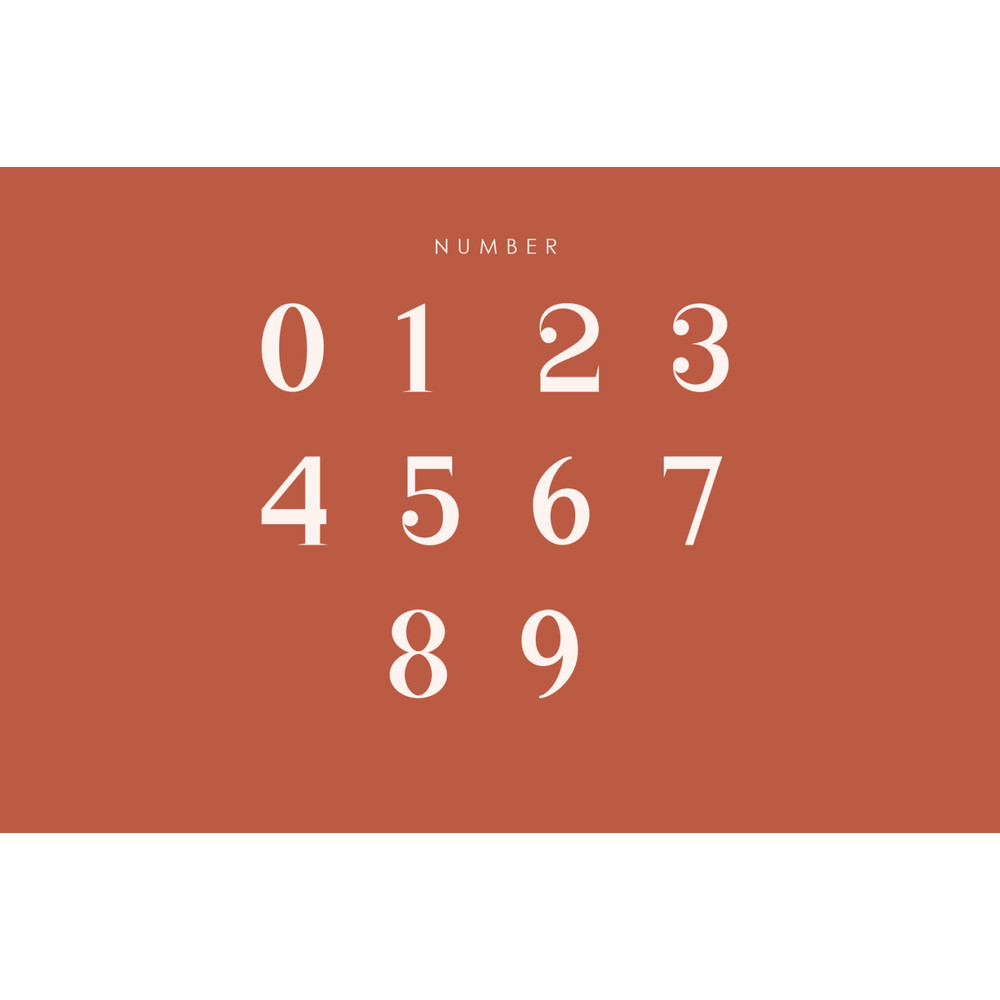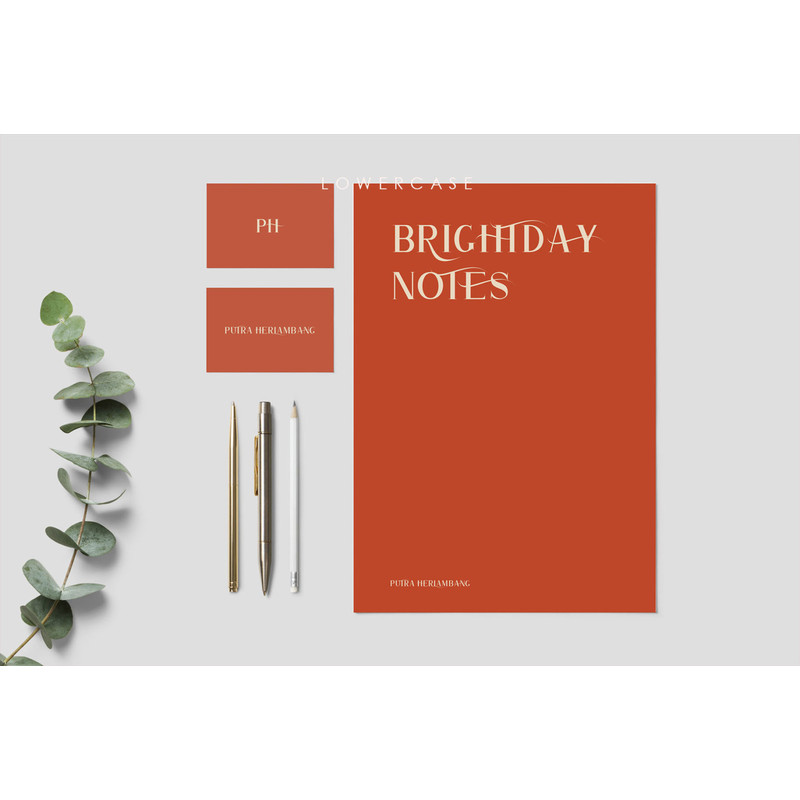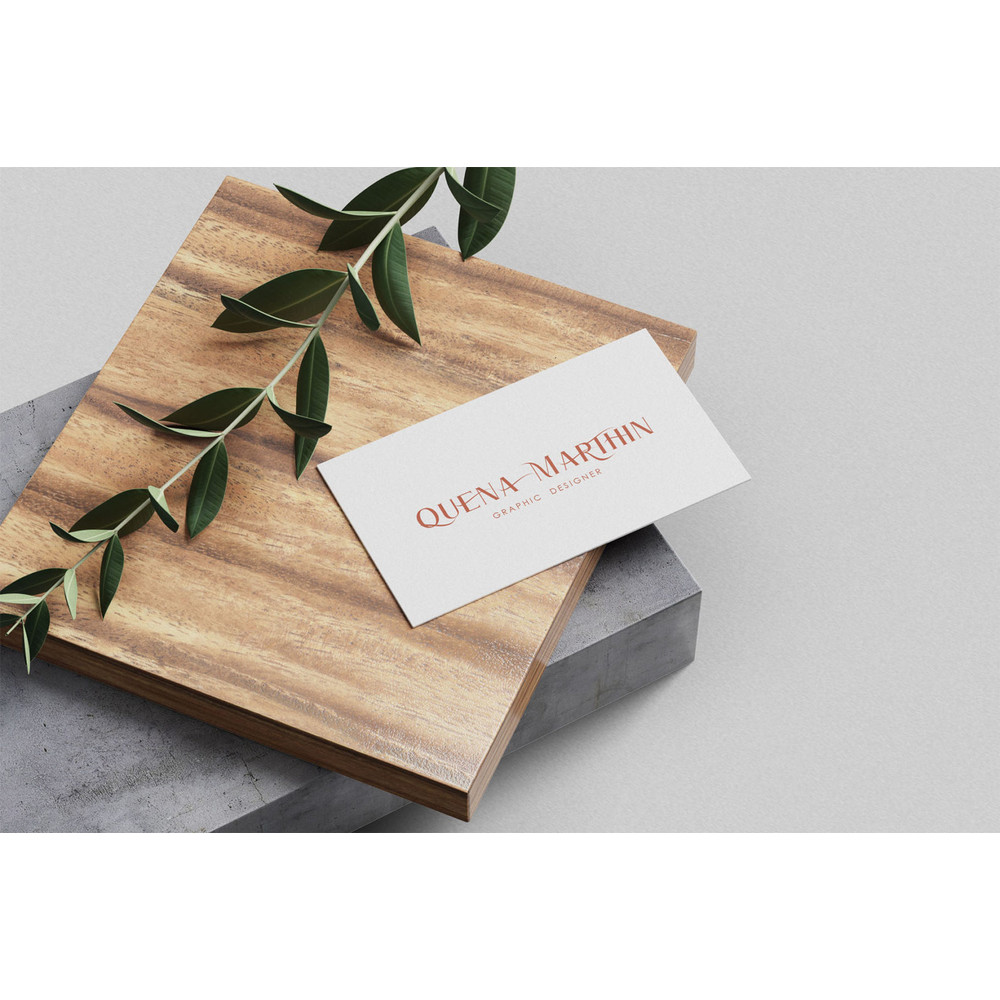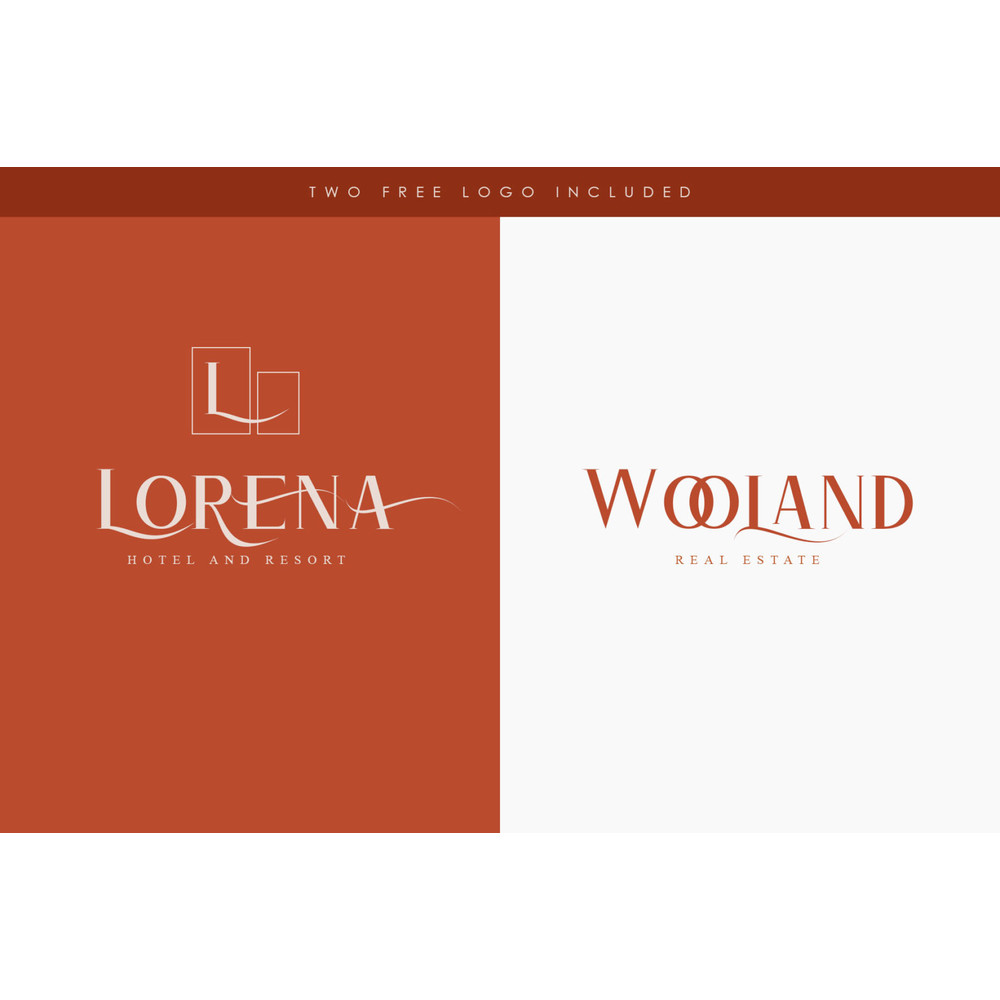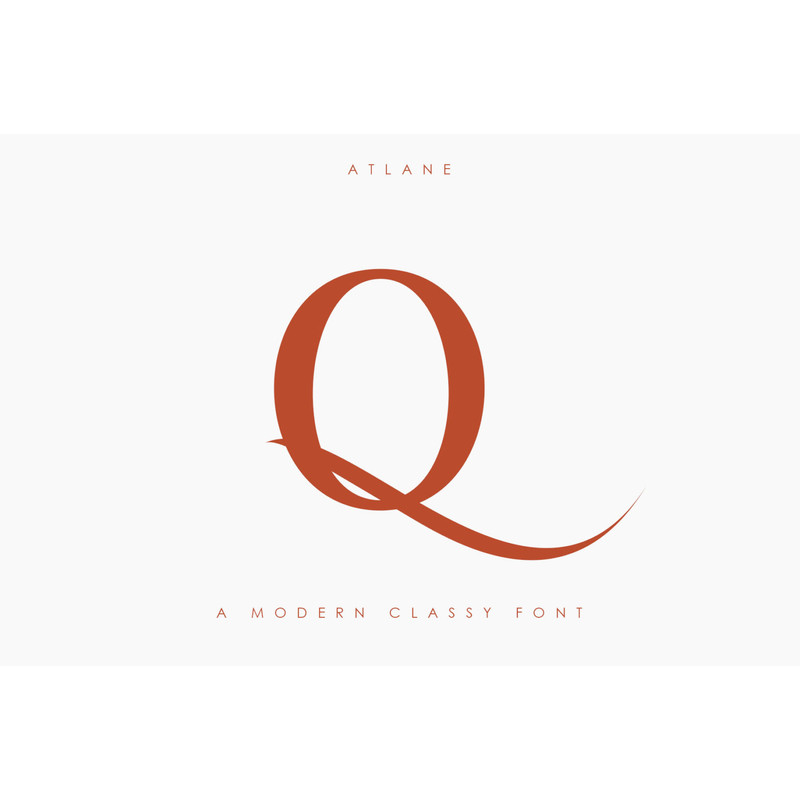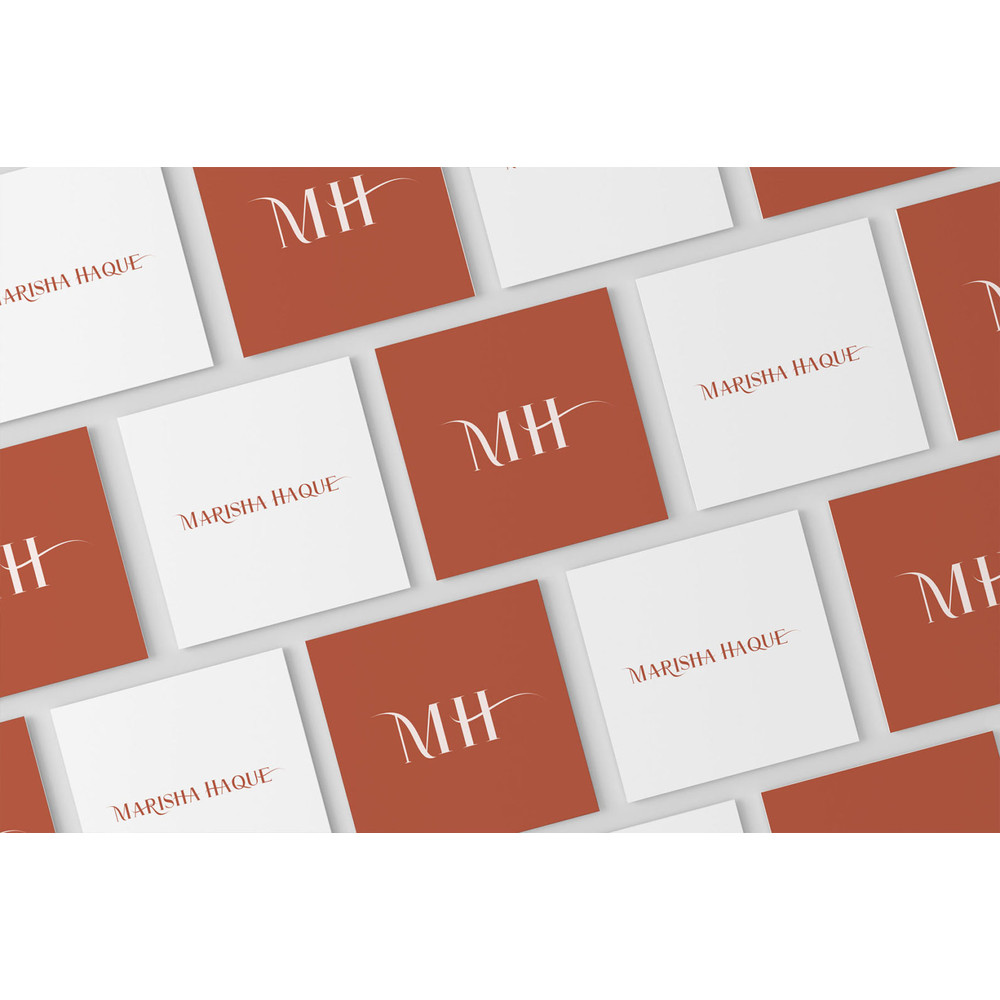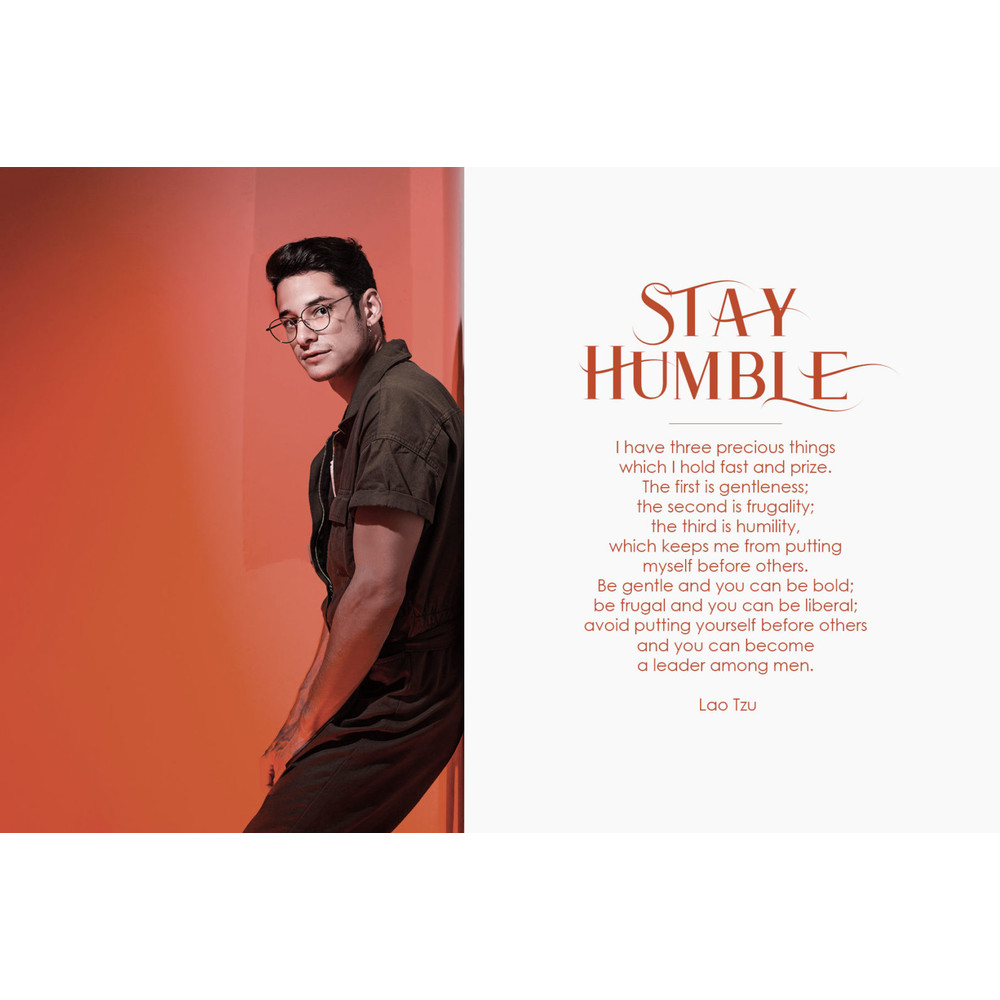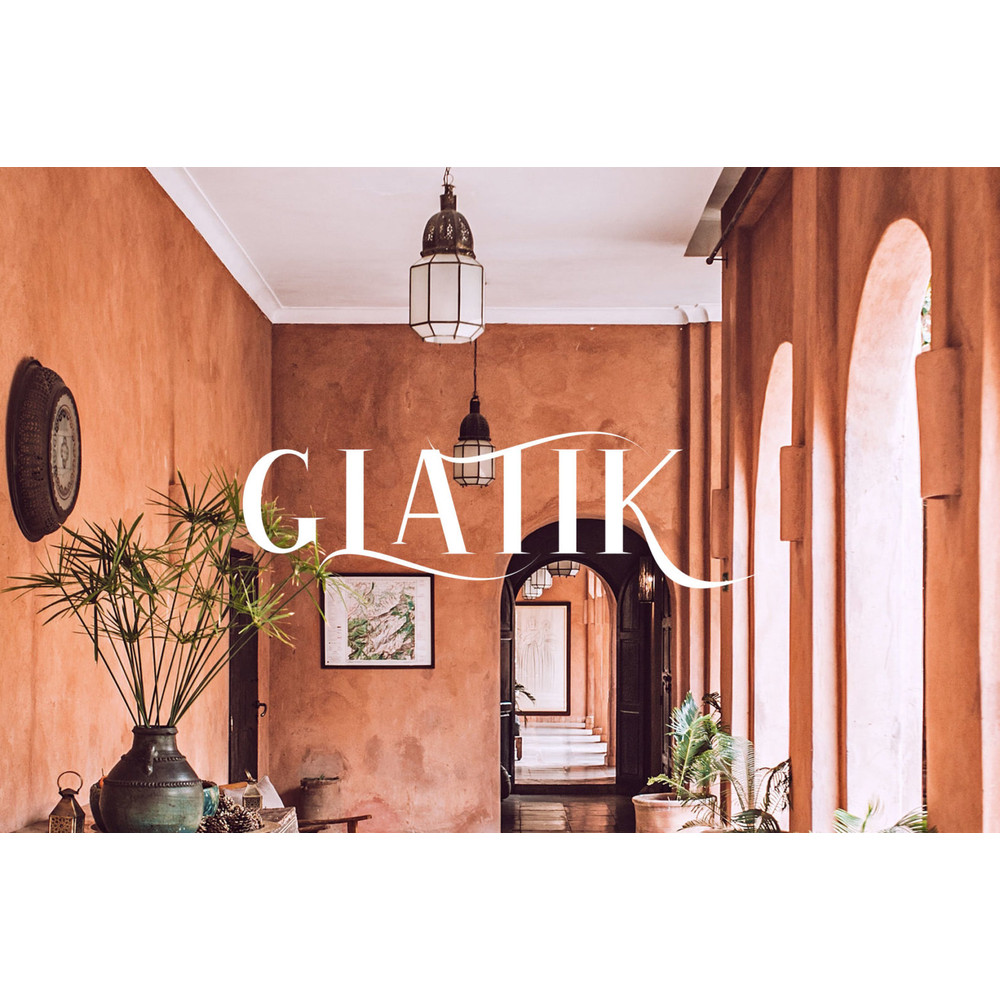
Atlane a new casual serif font with a modern concept, beautiful swash and ligature and can easily be applied to your designs such as logos, personal branding or others. This font is encoded with Unicode PUA, which allows full access to all additional characters without having special design software. Mac users can use Font Book, and Windows users can use Character Map to view and copy one of the extra characters to paste into your favorite text editor/application.